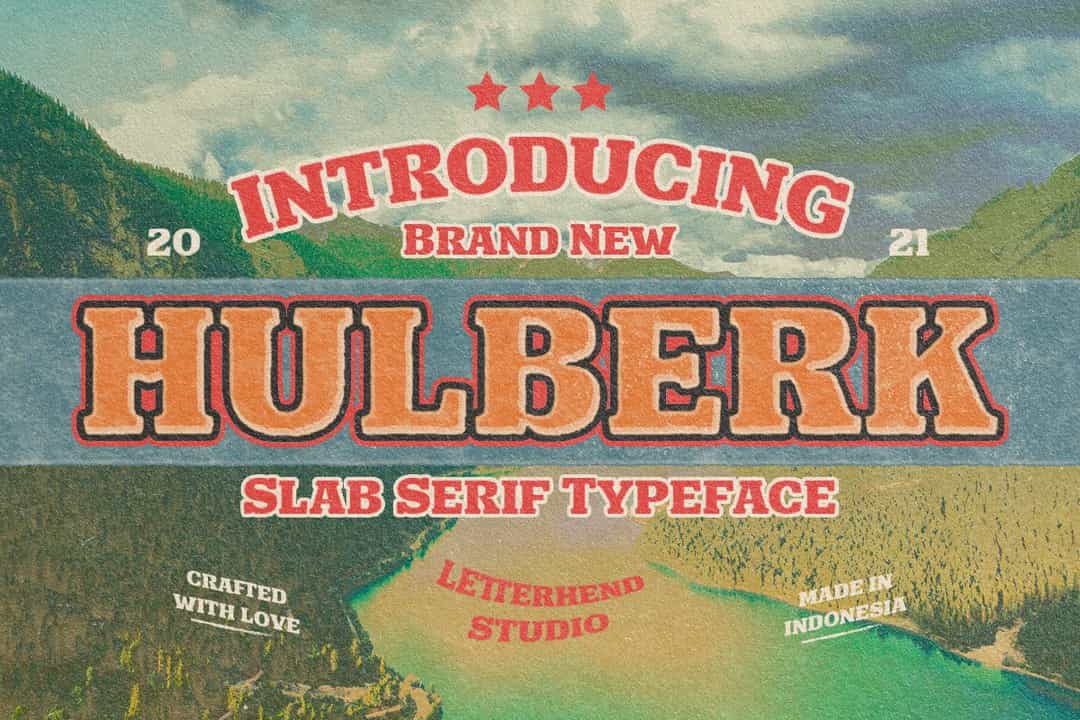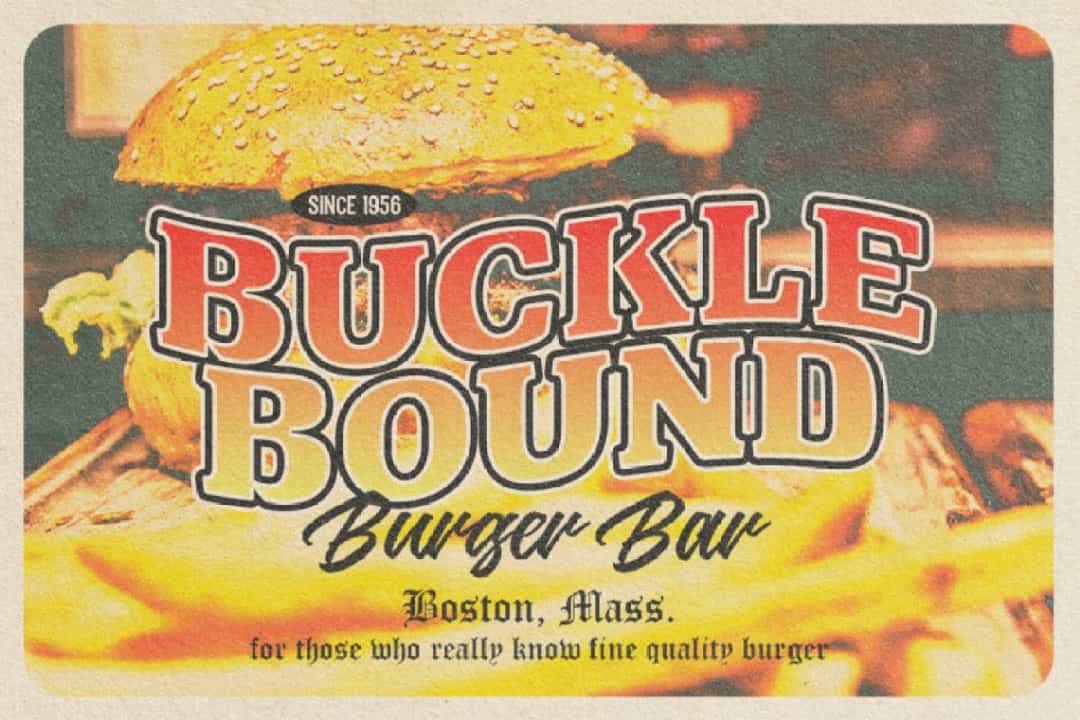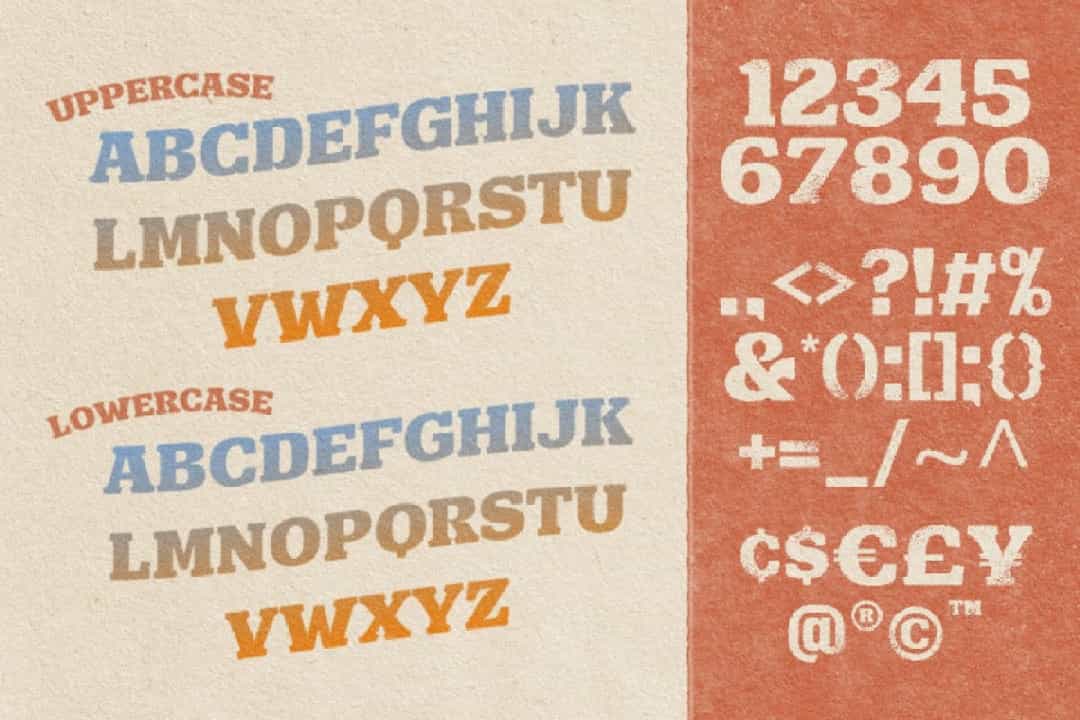
Hulberk Font is an Slab Serif typeface with a classic nostalgic appearance and feel, taking inspiration from signs from the 60s and 70s advertisements, labels, and other forms. This font can be utilized for headlines, logos or signage as well as formal designs like invitations labels as well as books magazines logos wedding/event cards packaging fashion makeup stationery novels labels or any other form of advertising purposes.